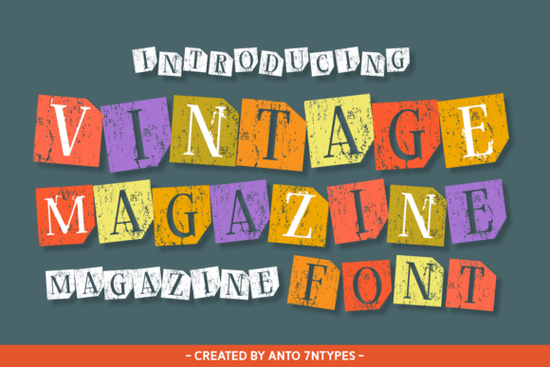
If you're searching for a typeface that brings a nostalgic, ransom-note aesthetic to your designs, Vintage Magazine is worth a close look. This display font combines cutout lettering with a text collage style, giving it a distinctly retro feel that works across branding, packaging, social media graphics, and print-on-demand projects. It's the kind of font that makes a headline pop without trying too hard.
What Makes This Font Stand Out?
The most immediate thing you'll notice about Vintage Magazine is its ransom letter style. Each character looks like it was cut from old newspapers and magazines, then reassembled by hand. That imperfect, textured quality is exactly what gives it personality.
Unlike many decorative fonts that sacrifice readability for style, this one stays legible at larger sizes. It's designed as a display font, which means it works best for:
- Headlines and titles magazine covers, blog headers, posters
- Book cover typography especially for memoirs, fiction, or art books
- T-shirt designs quotes, slogans, and retro-themed apparel
- Social media posts Instagram stories, quote graphics, thumbnails
- Branding and packaging labels, shopping bags, product tags
The handmade quality of each letter gives your designs an authentic, handcrafted look that digital-only fonts often miss. If you work in print-on-demand or sell on platforms like Etsy, that kind of visual texture can help your products stand out in a crowded marketplace.
Who Is This Font Best For?
This font fits naturally into the workflow of several types of creatives:
Print-on-demand sellers looking for eye-catching t-shirt fonts will appreciate its bold, quirky character. It pairs well with distressed backgrounds or vintage-inspired color palettes. If you also sell designs through platforms that reward unique typography, this is a solid addition to your toolkit.
Small business owners can use it for branding elements like business cards, signage, and social media templates. Its retro charm works especially well for brands in the food, fashion, or lifestyle space that want to convey authenticity.
Bloggers and content creators will find it useful for quote graphics and Pinterest pins. The collage-style lettering photographs well and grabs attention in fast-scrolling feeds.
Graphic designers and crafters working on invitations, scrapbook pages, or mixed-media projects will enjoy how easily it blends with other design elements.
How Does It Compare to Other Display Fonts?
Vintage Magazine occupies its own niche among these. It's less polished than a serif display font and more structured than a handwritten one. That middle ground messy but intentional is where it shines.
What Design Styles Pair Well With It?
Because of its collage and cutout nature, this font pairs best with:
- Minimalist layouts let the font be the focal point against clean backgrounds
- Kraft paper textures great for packaging and labels
- Dark or muted color palettes navy, forest green, burgundy, and cream work especially well
- Simple sans-serif body text for contrast in editorial or web layouts
Avoid pairing it with other heavily decorative fonts. The ransom-style lettering already carries a lot of visual weight, so simplicity around it is key.
Tips for Using Vintage Magazine in Your Projects
- Use it large. This is a display font. It loses its charm at small sizes, so keep it for headlines, titles, and feature text.
- Experiment with color. Try using different colors on individual letters to lean into the collage effect.
- Add texture overlays. A subtle grain or paper texture can make the font feel even more authentic.
- Test different letter-spacing. Tightening or loosening the spacing changes the overall mood quite a bit.
Quick Checklist Before You Buy
Ask yourself these questions to make sure this font is the right fit:
- ✔ Do you need a bold, retro display font for headlines or branding?
- ✔ Do your projects lean toward vintage, grunge, or collage aesthetics?
- ✔ Are you creating t-shirt designs, quote graphics, or packaging?
- ✔ Do you want a font with handmade character rather than a clean, corporate look?